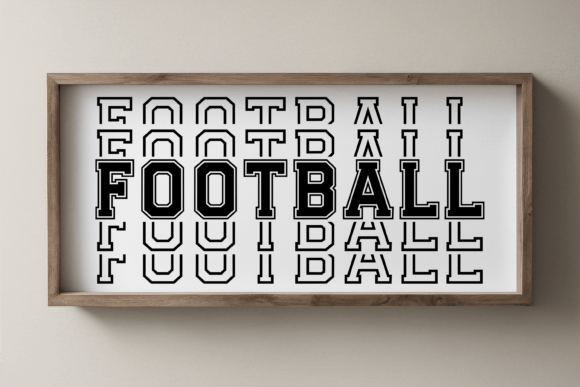
Stacked Jersey Font
The Stacked Jersey Font is a dynamic and powerful typeface designed for sports enthusiasts, team branding, and bold statement designs! Featuring stacked varsity-style letters with a bold uppercase and outlined lowercase combination, this font is perfect for crafting standout graphics for jerseys, posters, apparel, and more. This versatile athletic font is ideal for Cricut, Silhouette, Canva, Procreate, and Sublimation projects. Whether you’re designing for football, basketball, baseball, or any other sport, Stacked Jersey Font ensures your creations stand out with a bold, layered effect.